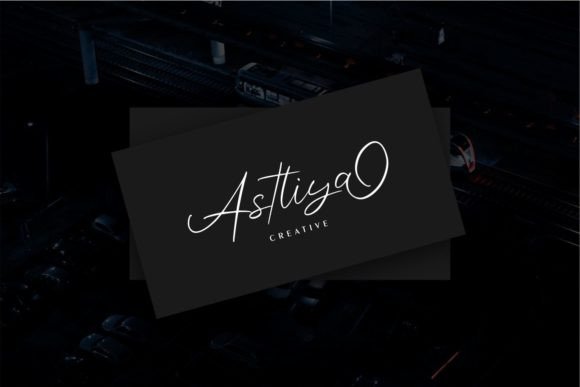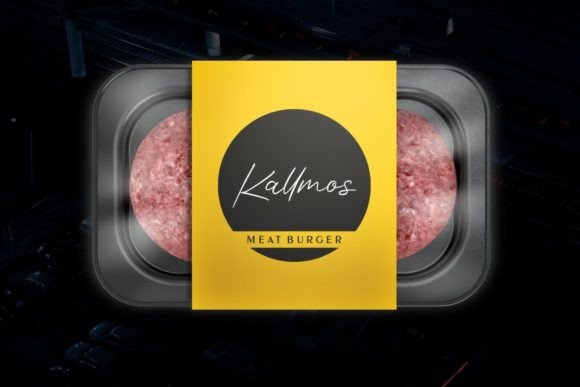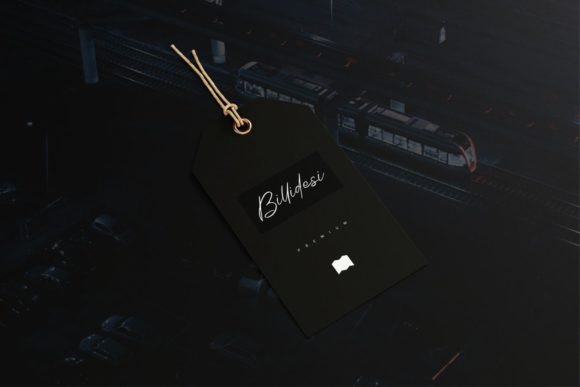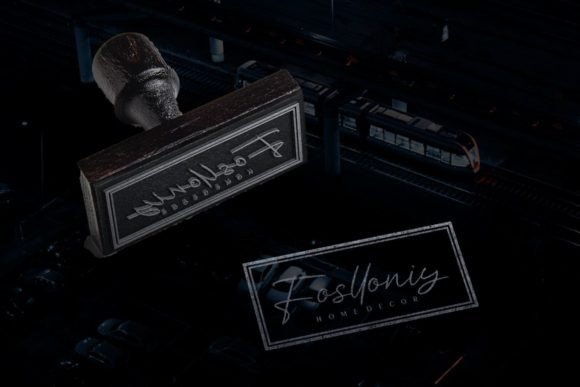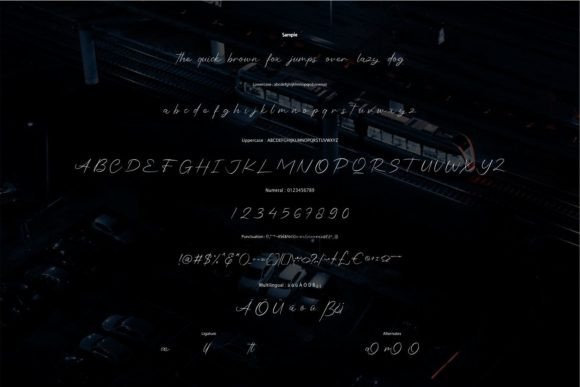
Introduction to Rostlema Font
Remember the moment when you stumbled upon the perfect font for your design project? The one that makes your words dance and tells the story you want to tell? For designers, that ‘aha’ moment is priceless. It’s a feeling of satisfaction that comes with knowing you’ve found the perfect tool to elevate your creative project. And for those who’ve been searching for that special something, we’re excited to introduce you to the Rostlema Font – a high-quality, enchanting handwritten font that’s about to become your new best friend.
Key Features of Rostlema Font
- Rostlema Font is designed to be highly versatile, suitable for use in logos, branding materials, and other design elements.
- With its clean and modern design, Rostlema Font is an excellent choice for designers looking for a high-quality, free design resource.
Honest Review: Rostlema Font
I recently came across the Rostlema Font, a unique design resource that caught my attention. As a designer, I’m always on the lookout for high-quality fonts to elevate my creative projects.
Here are some of the key features that make the Rostlema Font stand out:
- High-quality design with a unique aesthetic
- Perfect for creative projects that require a touch of elegance
While the Rostlema Font is a great addition to any designer’s toolkit, there are some limitations to be aware of:
- ⚠️ Limited font weight options
- ⚠️ Not ideal for use in very small text sizes
Overall, I’m impressed with the Rostlema Font and would recommend it to designers looking for a high-quality, versatile font to add to their creative arsenal.
✨ The Rostlema Font is a great choice for designers who want to add a touch of sophistication to their projects.